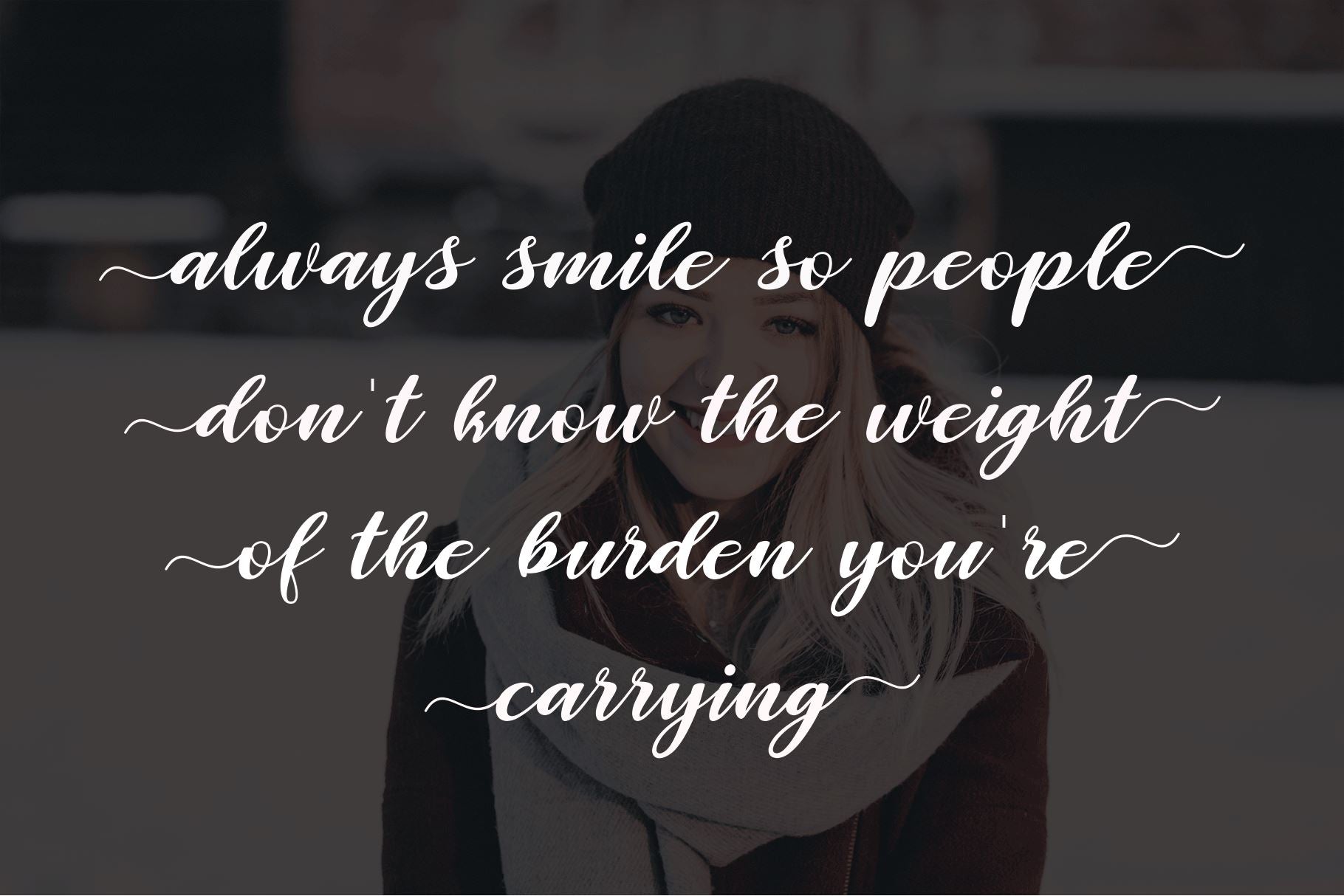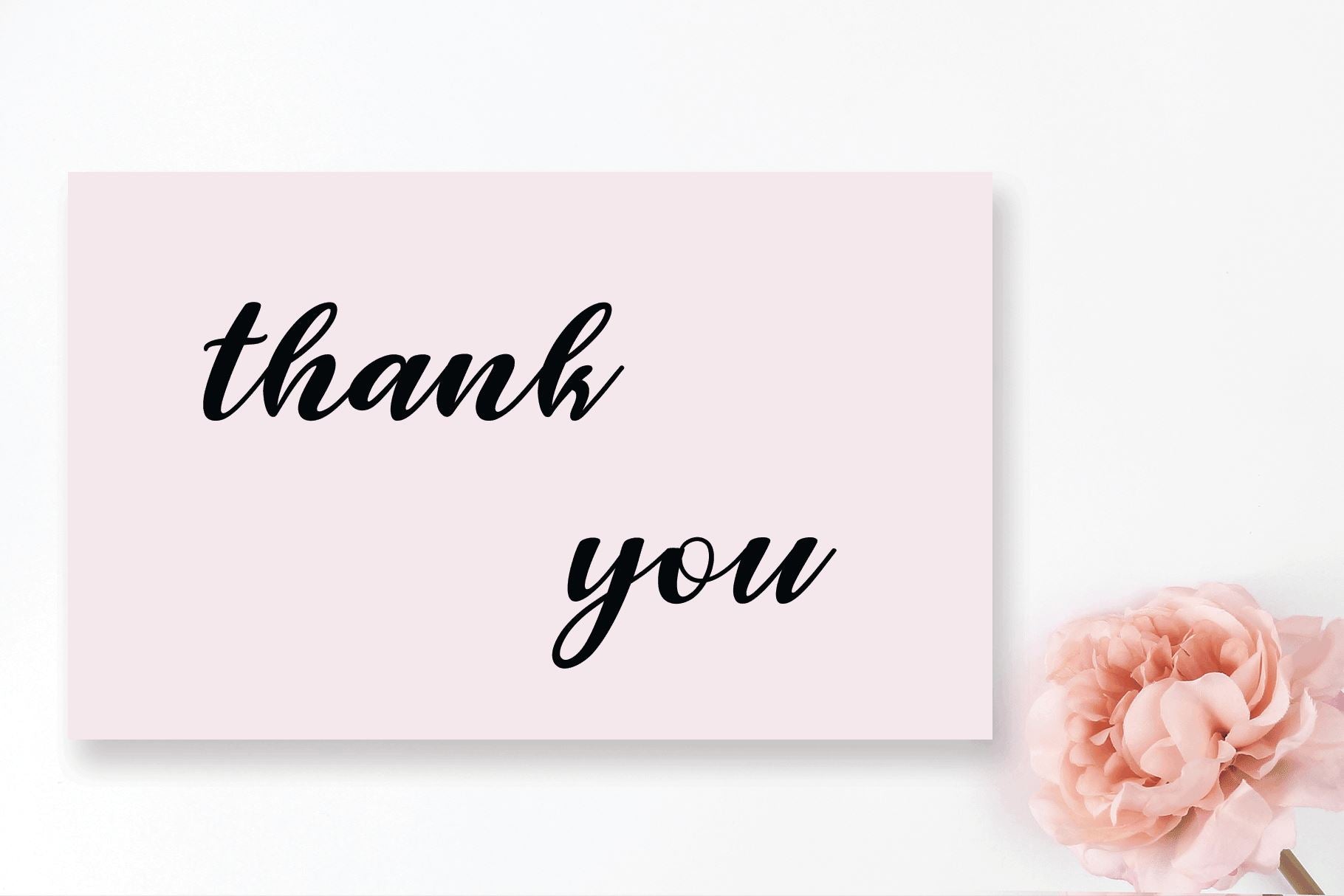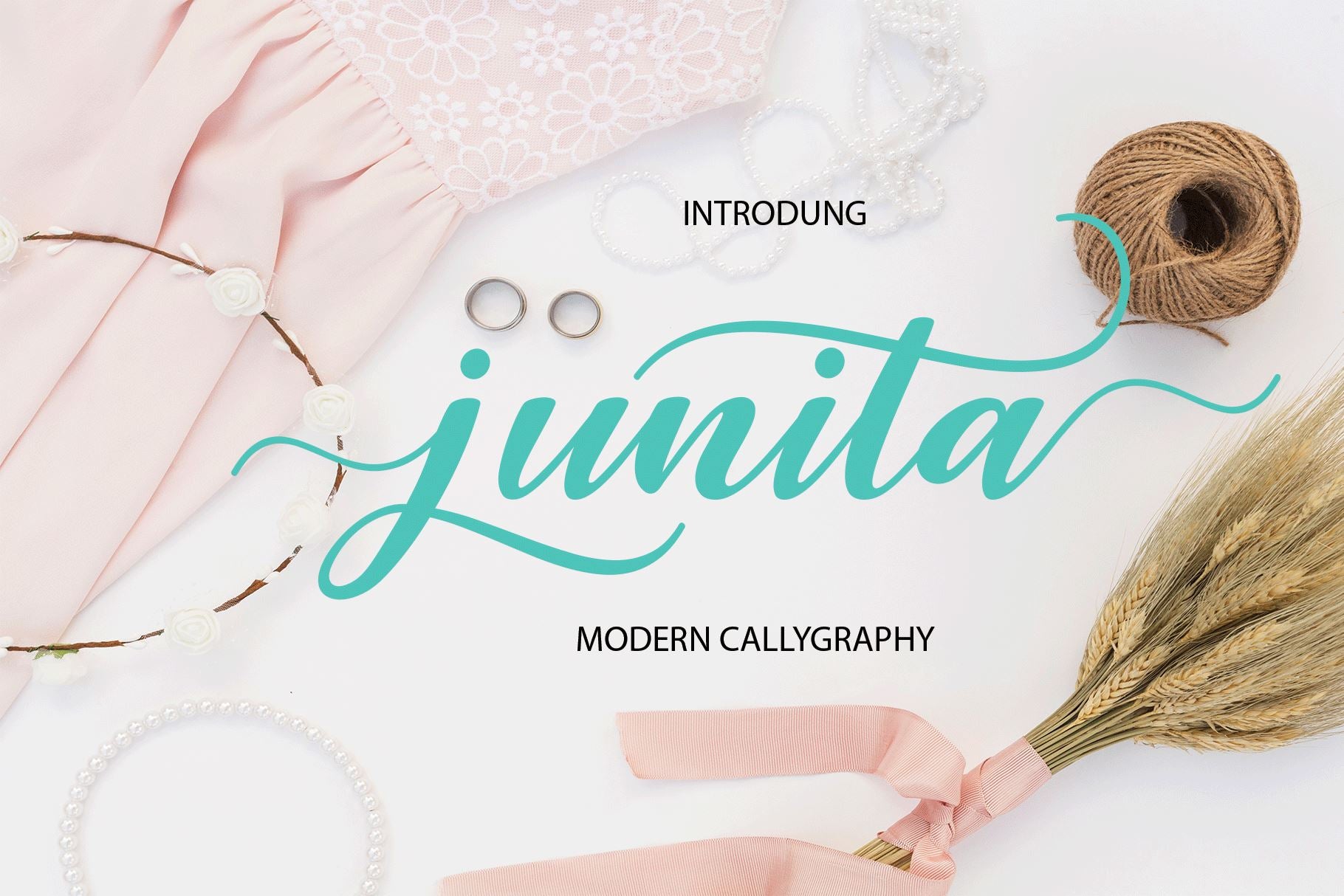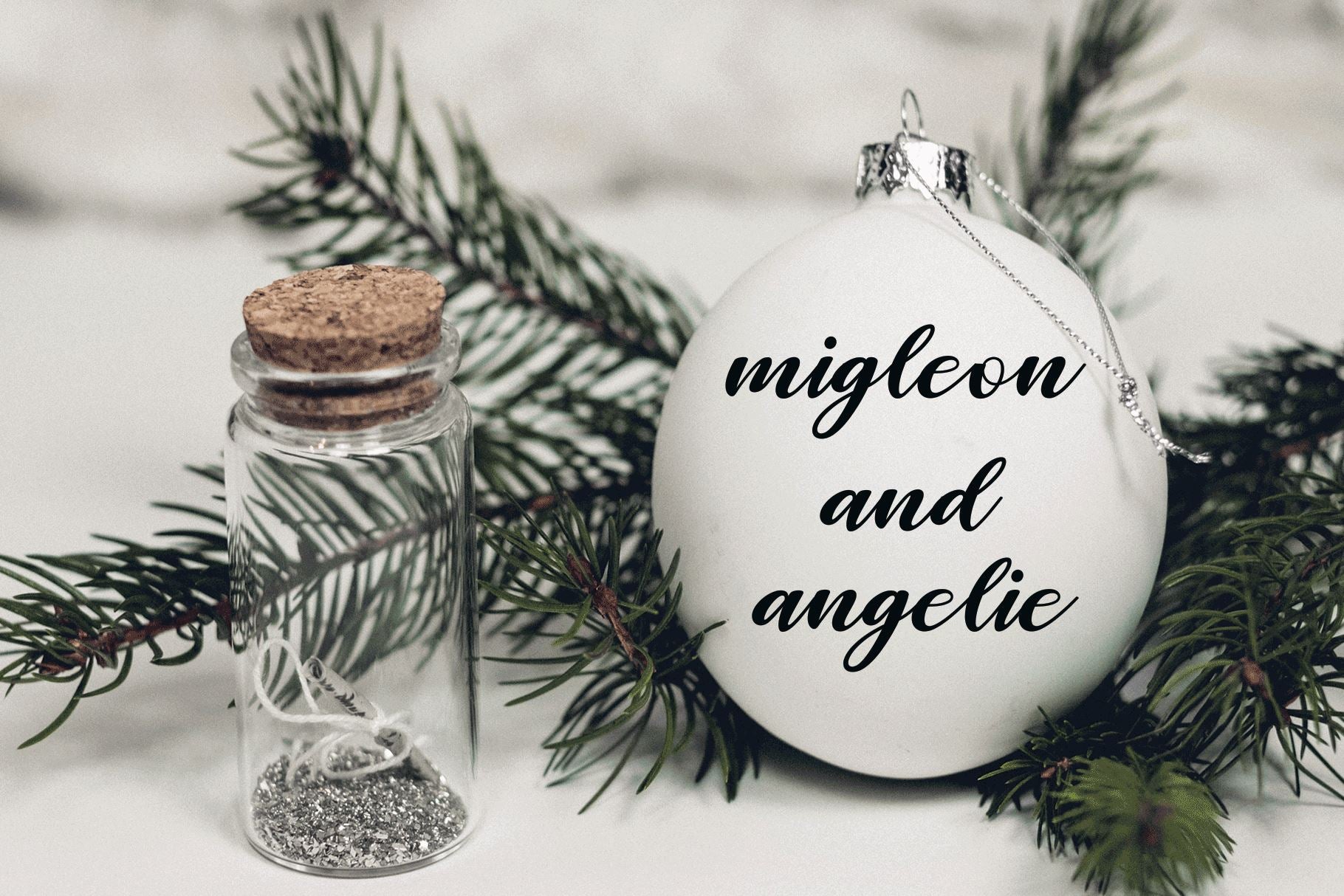
About Junita Script
junita Modern Calligraphy. This font was designed by handwriting, and it has a modern and unique forms of calligraphy, the writing style is very natural. The Features of this fonts is; Standart ligatures Stylistic Alternates Contextual Alternates Stylistic sets File font junita Include; junita OTF junita TTF junita font Web junitaPUA Unicode (Private Use Areas) Programs that support in this font is a Photo Shop, Adobe Illustrator, Adobe Indesign, Corel Draw and Microsoft Office. Can be used for various purposes.such as headings, logos, wedding invitation, t-shirt, letterhead, signage, lable, news, posters, badges etc. To enable the OpenType Stylistic alternates, you need a program that supports OpenType features such as Adobe Illustrator CS, Adobe Indesign & CorelDraw X6-X7.